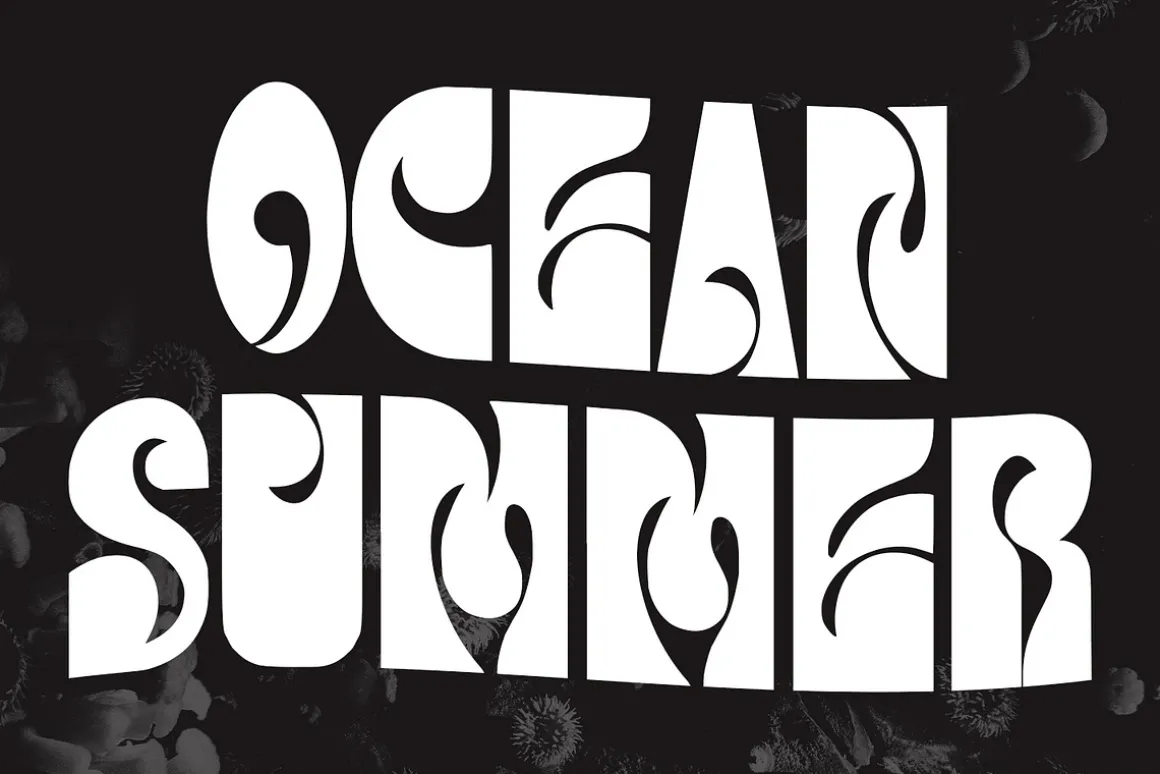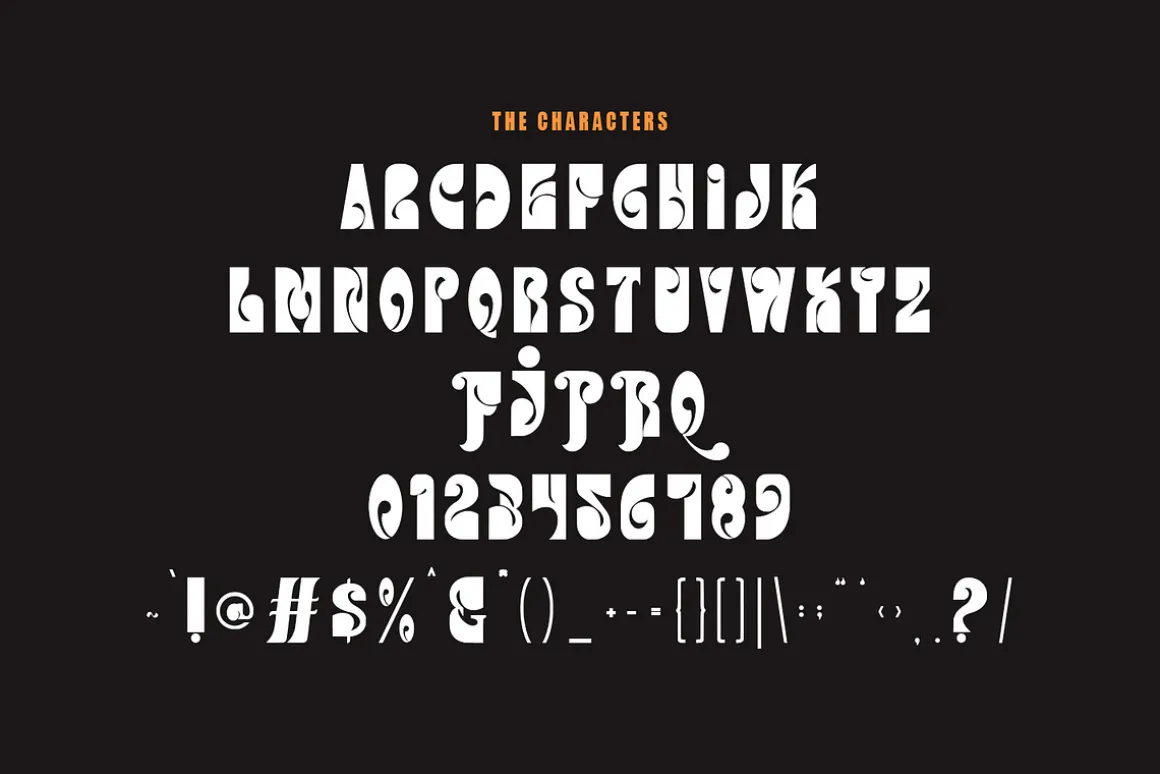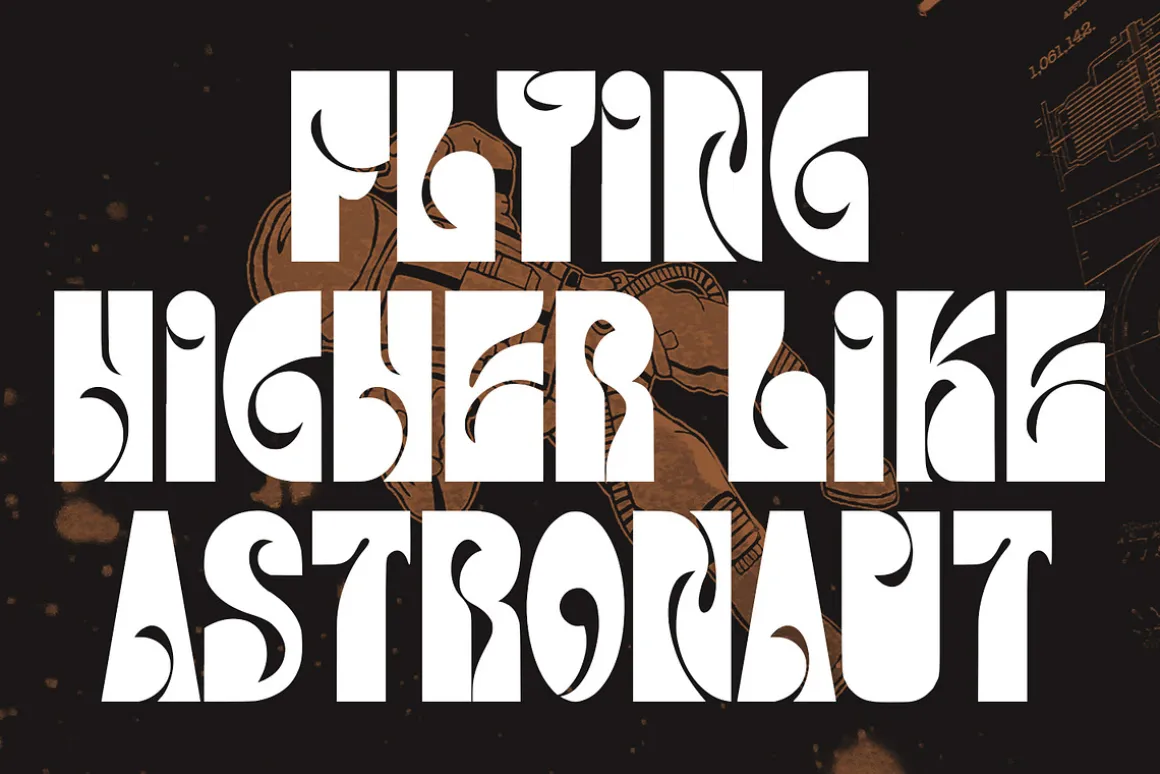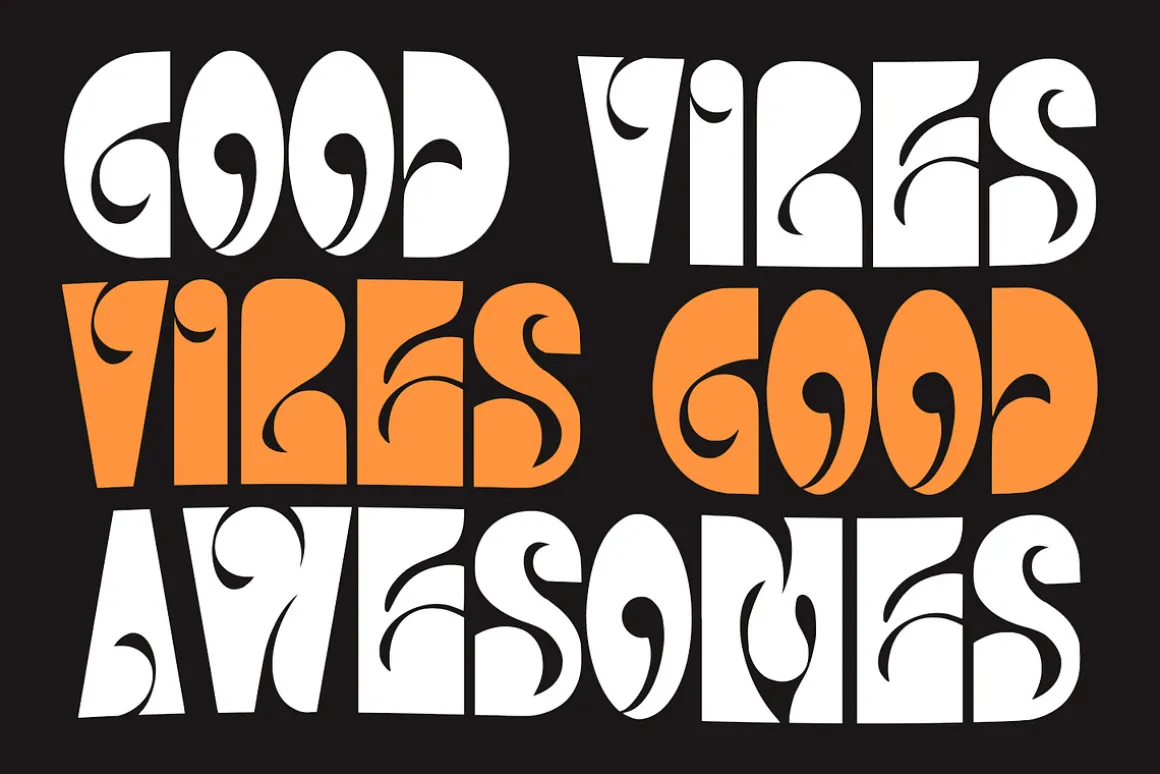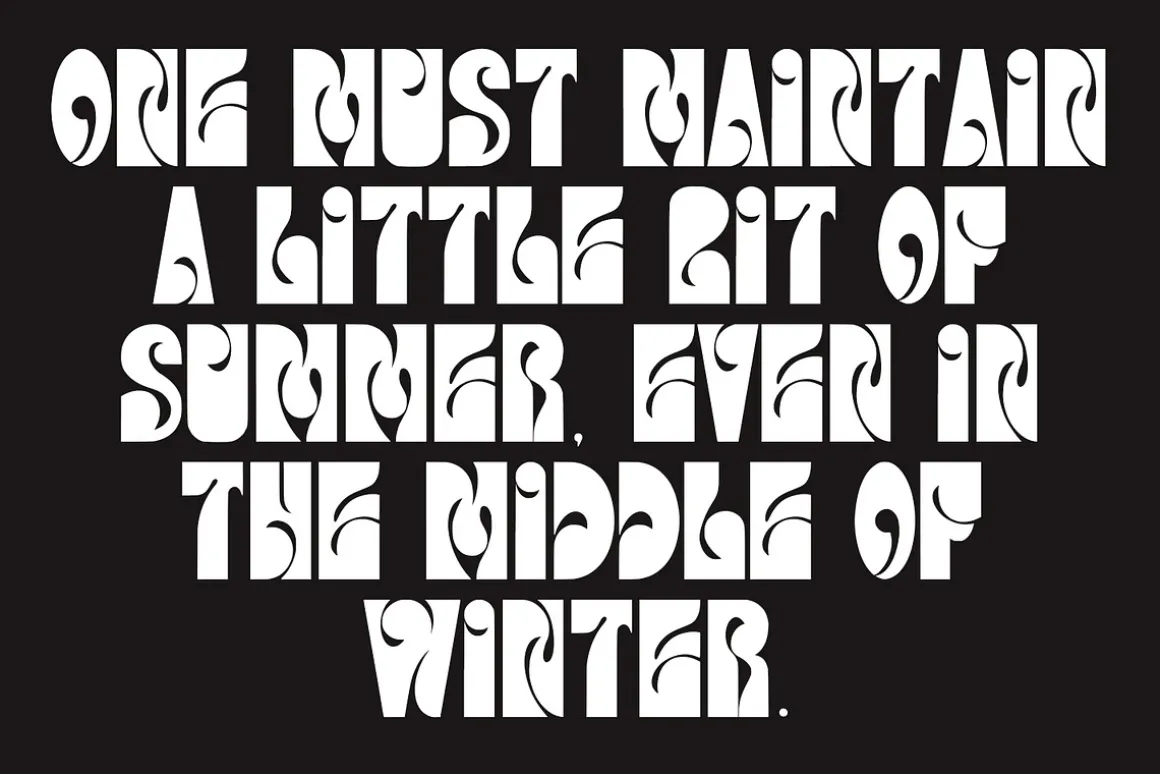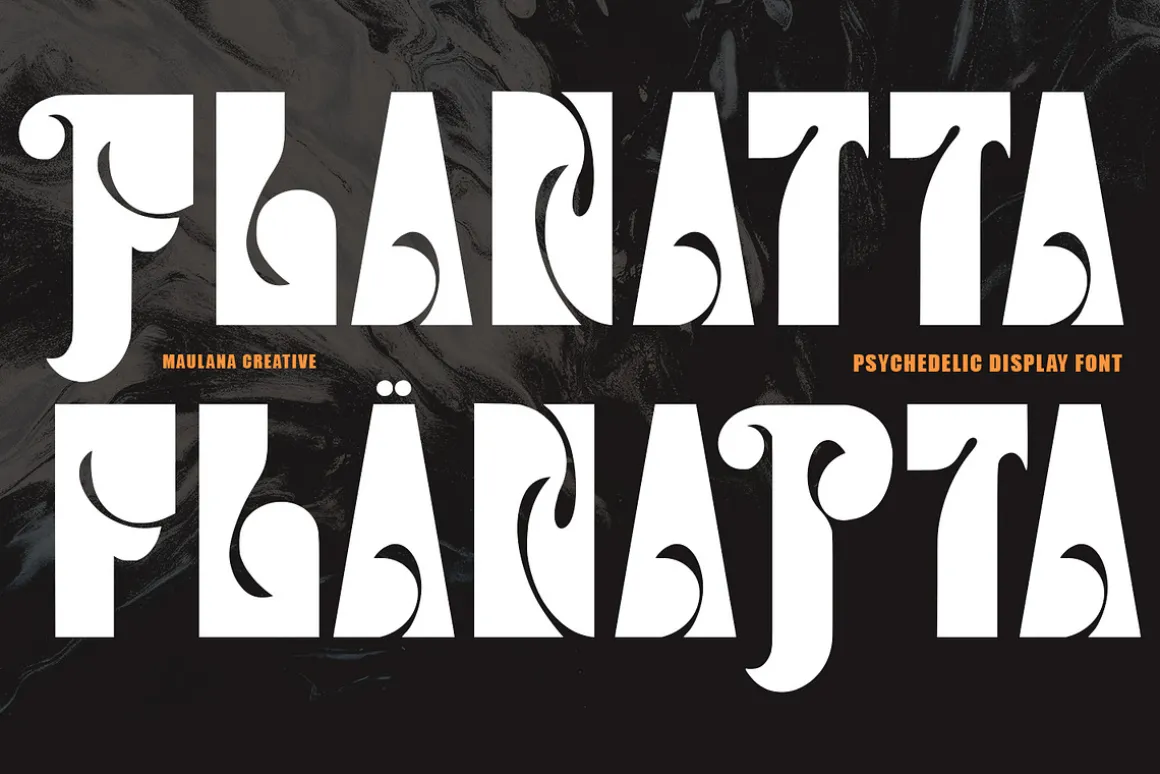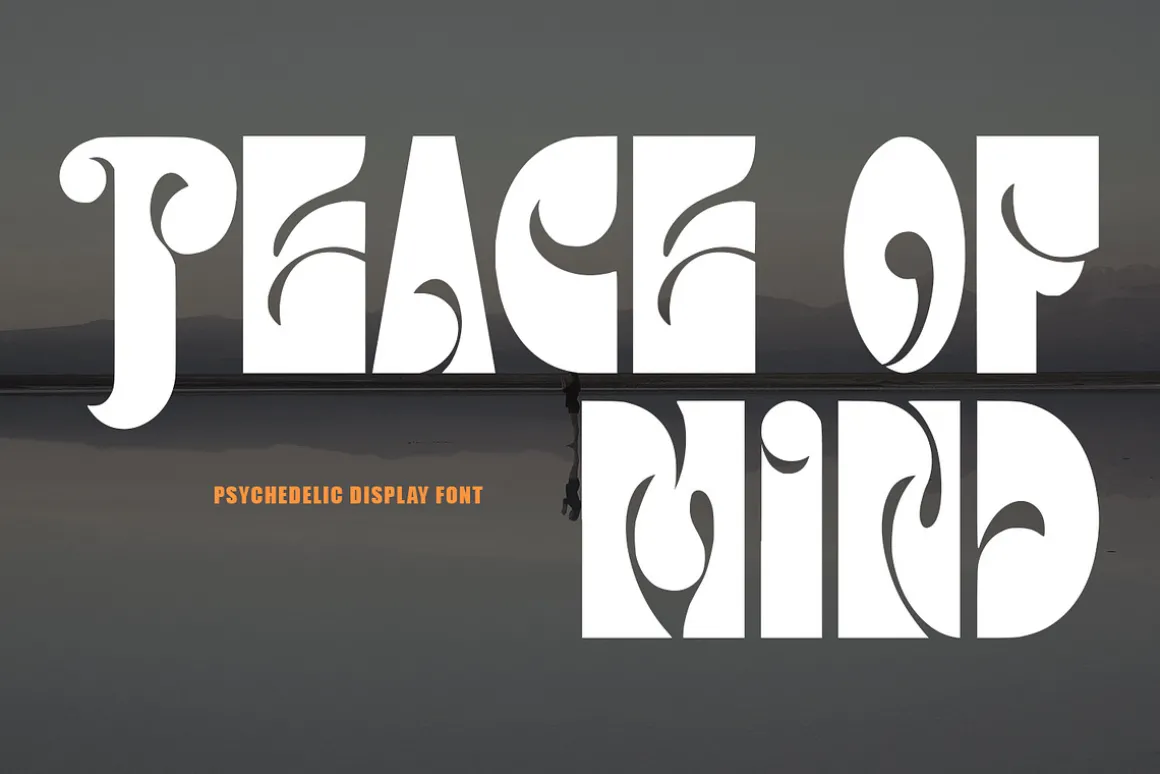
Flanatta psychedelic display font is a Hand-lettered font inspired by the vintage 70’s sign board, music, shop and movies. Flanatta includes opentype features Alternates. It support multilingual language. This font is good for logo design, Movie Titles, Books Titles and any awesome project you create. Make a stunning work with Flanatta psychedelic display font.